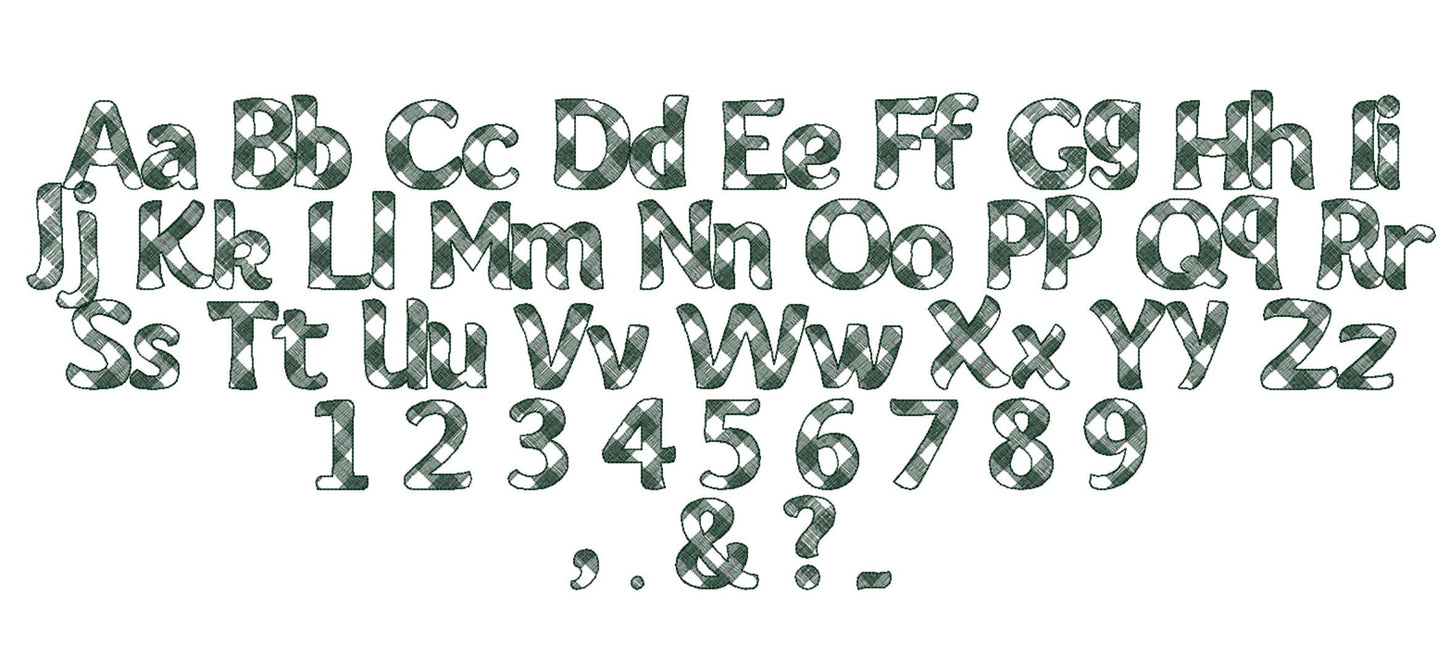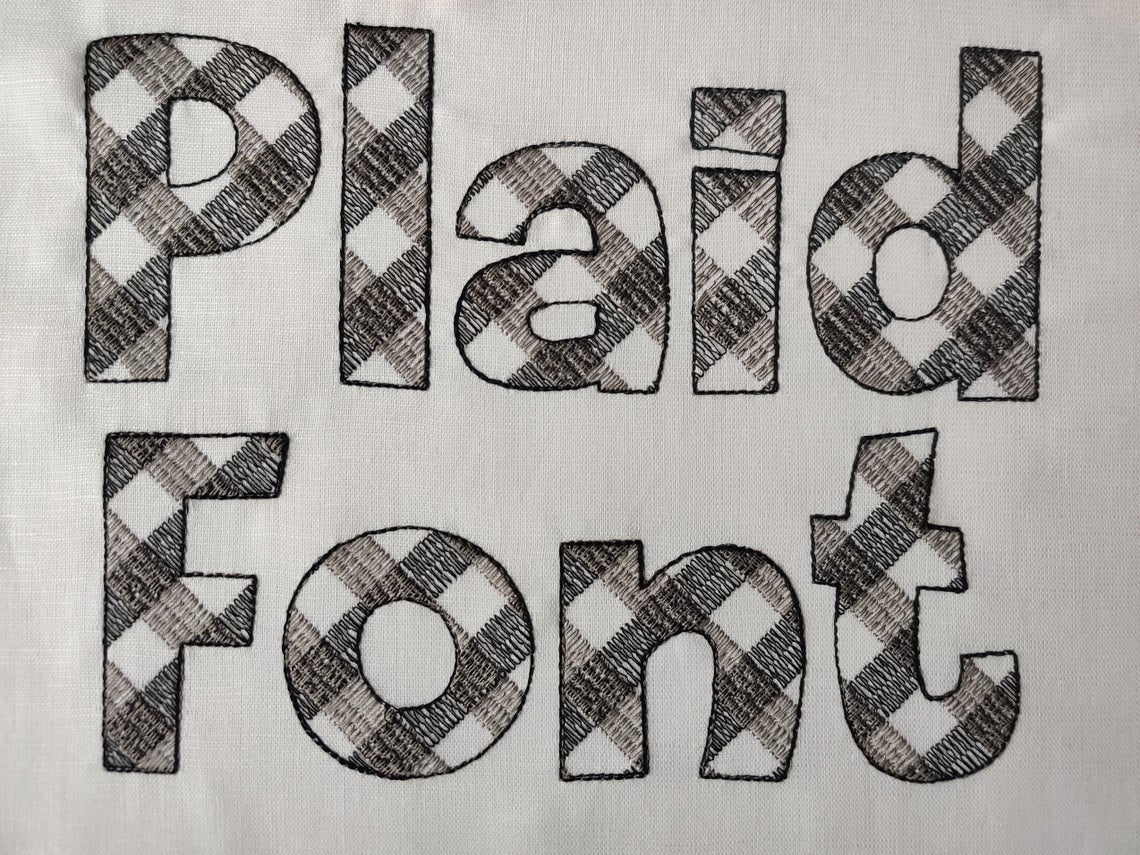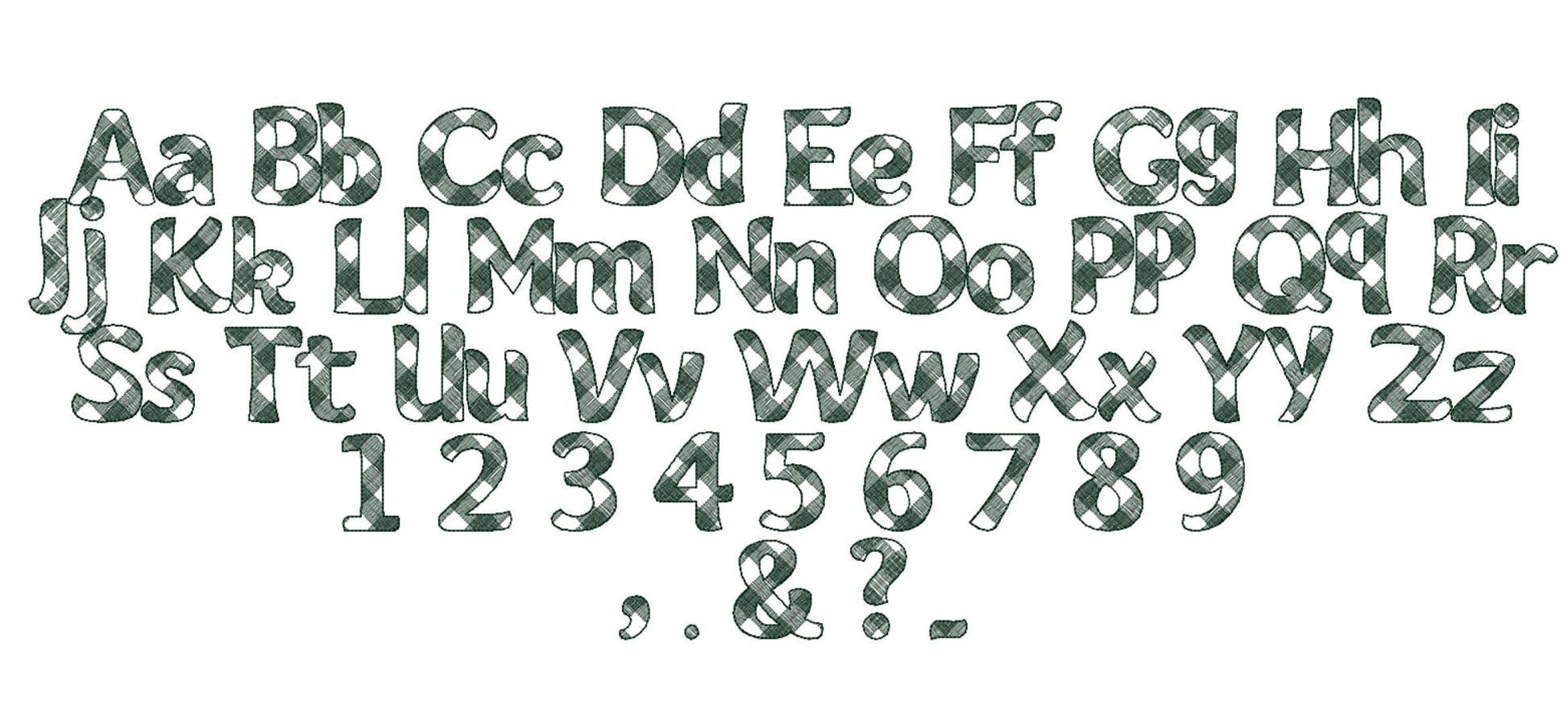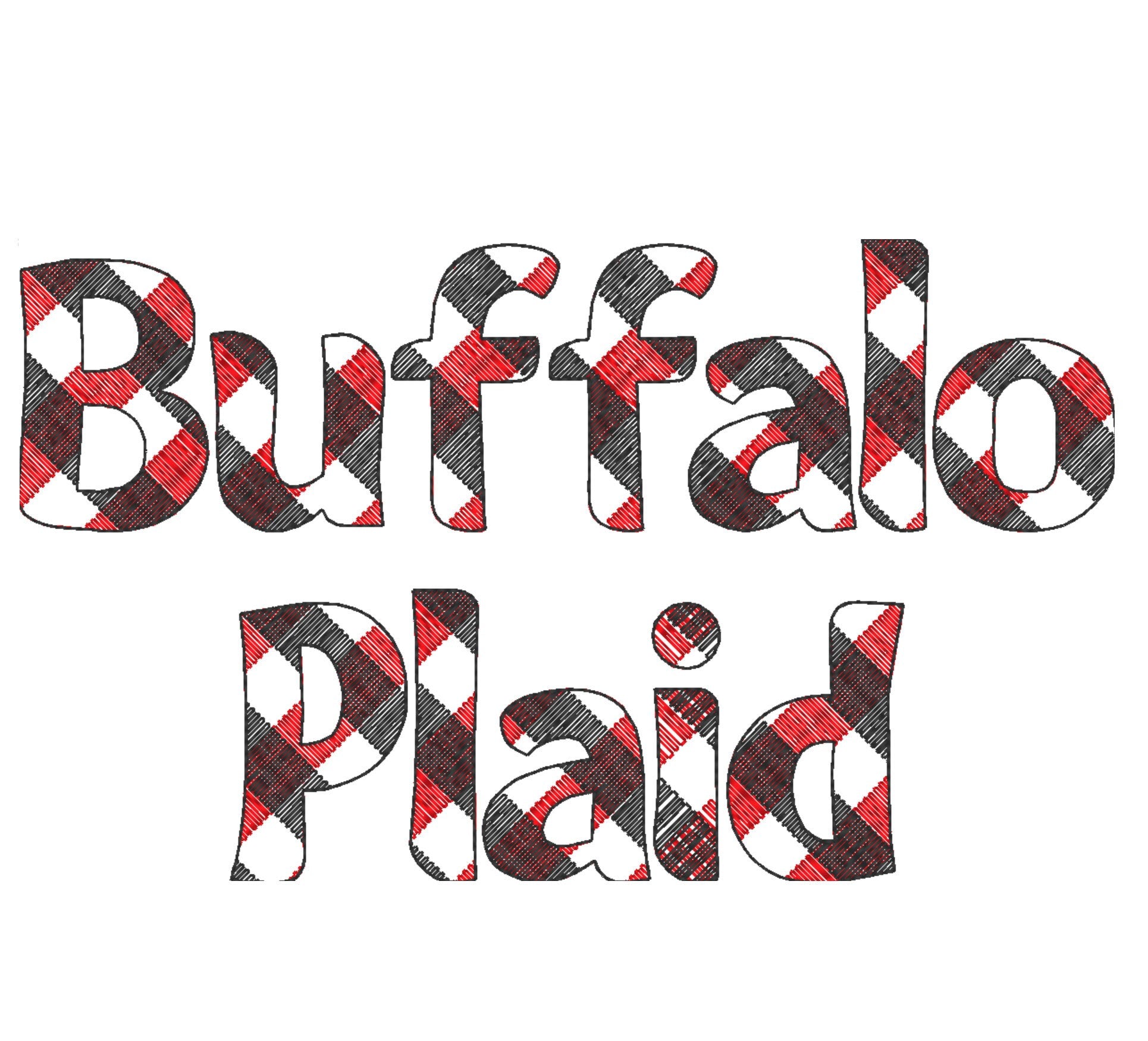
Buffalo Plaid Patterned Block Font
Buffalo plaid Tartan Gingham Font light sketch outline machine embroidery font alphabet letters
Stitched out very nicely. Had to adjust some of the capital letters, which were small in relation to the lower case (ex. T compared to h) - but that was easy.
It stitches out how you expect. You will want to color sort so you don't have to change colors 3x for each letter.